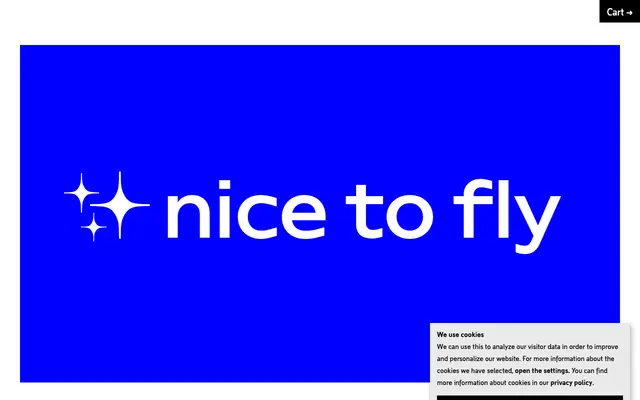
Takeoff B
Nice To Type · Gabriel Richter · 2022
A geometric sans by Gabriel Richter built around a 15-degree line-ending angle derived from an aircraft's take-off angle, available in standard and reversed-contrast variants with a variable font including independent spike and reversed-contrast axes.
The B subfamily is the reversed-contrast branch of Takeoff, where the usual stress distribution is inverted to give greater airiness and a more leisurely visual rhythm. Line endings across both the static and variable versions are cut at 15 degrees, the average take-off angle of an aircraft, producing open, easily legible forms that work across logos, headlines, body copy and signage. A spike axis in the variable font allows stroke endings to shift from subtly angled to aggressively sharp, with the full variable font data included when purchasing the complete static family.
Takeoff is a geometric sans with a distinctive structural concept: line endings are cut at 15 degrees to mirror an aircraft's average take-off angle, giving it a graphic, open character that sits within the geometric sans tradition with an engineered, systematic approach.